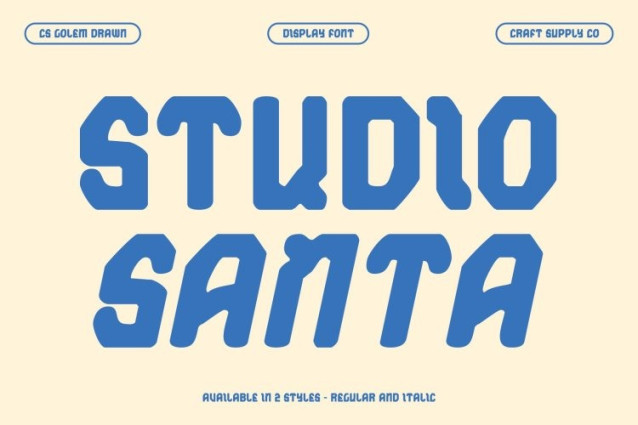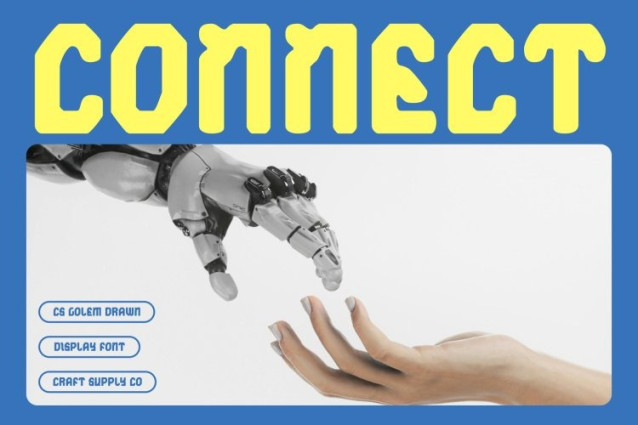
CS Golem Drawn Font
CS Golem Drawn Font This is a bold pixel display font that channels the charm of vintage 8-bit and 16-bit video game typography. Its modular, square letterforms capture the essence of early computer graphics and arcade classics, instantly evoking a sense of digital nostalgia. The font combines retro aesthetics with a contemporary, expressive style, making it perfect for projects that want to merge playful energy with structured design.
Strong Structure with Playful Energy
Each glyph in this font is carefully crafted with a monospaced, geometric layout that ensures visual consistency while maintaining a lively rhythm. The bold, blocky forms deliver a commanding presence, yet their pixel-inspired quirks bring character and fun. This balance between order and playfulness makes the font ideal for posters, branding, gaming visuals, and tech-driven creative projects.
Retro-Futuristic Appeal
While rooted in nostalgia, carries a modern twist, bridging the gap between past and present. Its pixel-perfect structure works beautifully in synth wave designs, retro-themed digital campaigns, or any project that seeks a futuristic-retro vibe. The font’s boldness ensures attention, while the handcrafted drawn effect adds texture and personality.
Perfect for Digital and Creative Projects
This font excels in gaming interfaces, music visuals, tech branding, and nostalgic throwback designs. Its combination of strength, playfulness, and retro charm ensures that every project stands out, delivering a unique digital identity that is both bold and memorable.